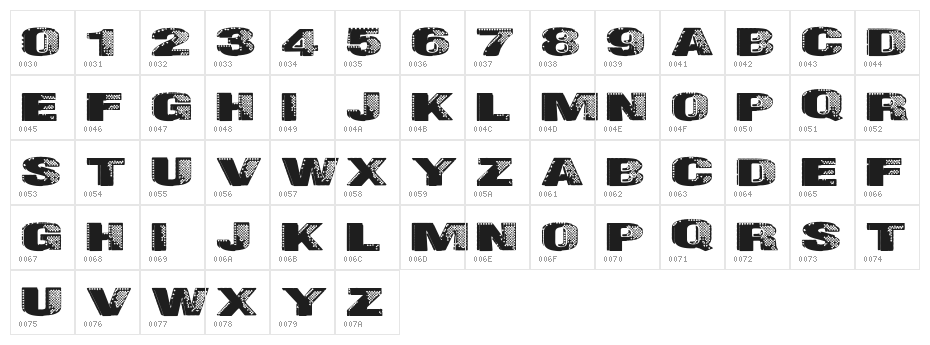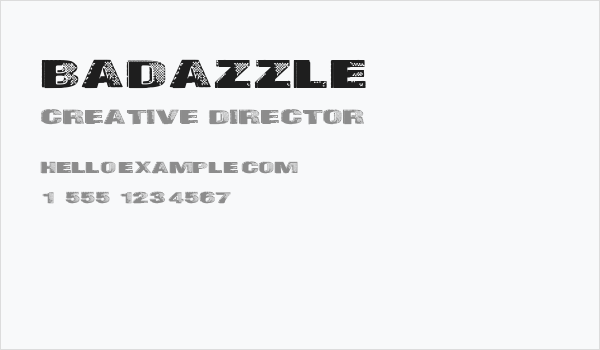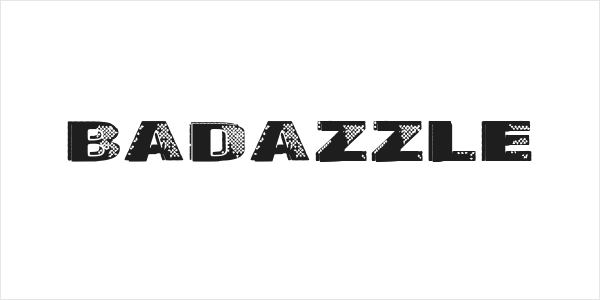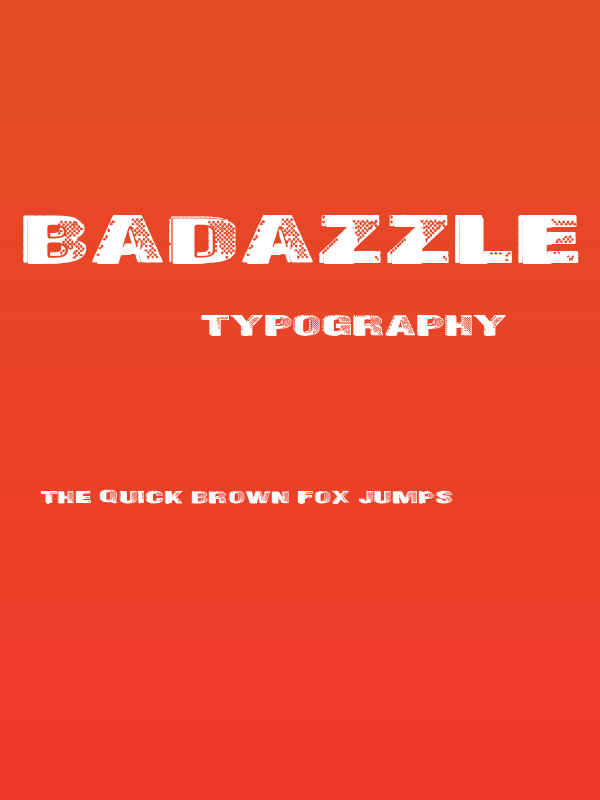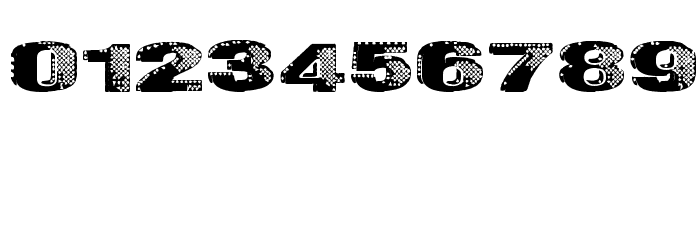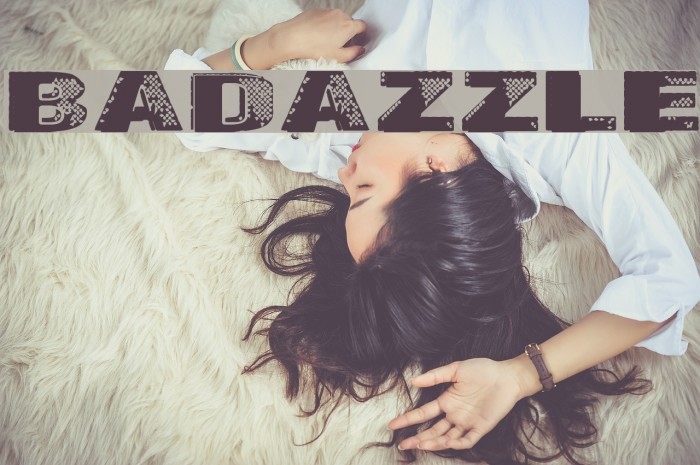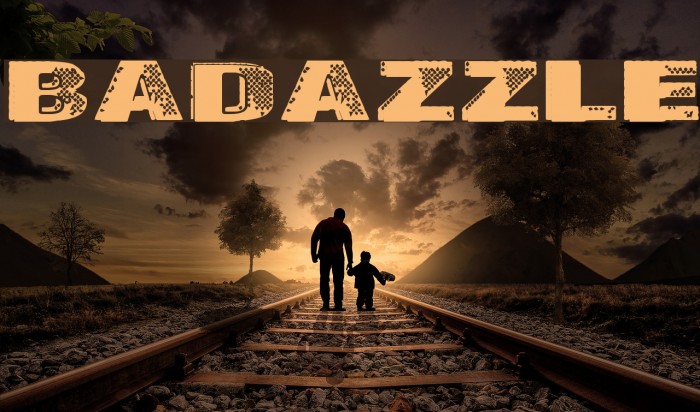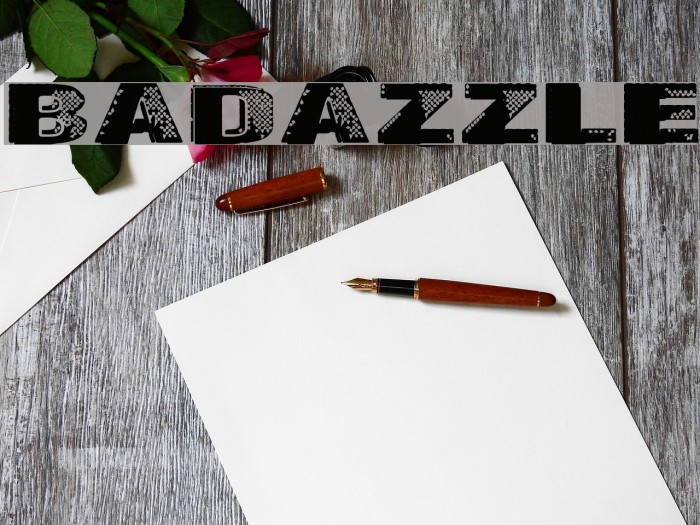
Badazzle Font
This font features a bold, distressed style with a textured appearance that gives it a rugged and edgy look. The uppercase letters are prominent and impactful, making them ideal for attention-grabbing designs. The characters have a consistent width, and the texture within each letter adds a unique, gritty effect. The numbers and special characters maintain the same bold and textured style, ensuring uniformity across all elements. This font is perfect for projects that require a strong, unconventional aesthetic.
| Proposed Projects | Ideal for posters, album covers, urban-themed designs, and branding that requires a bold statement. |